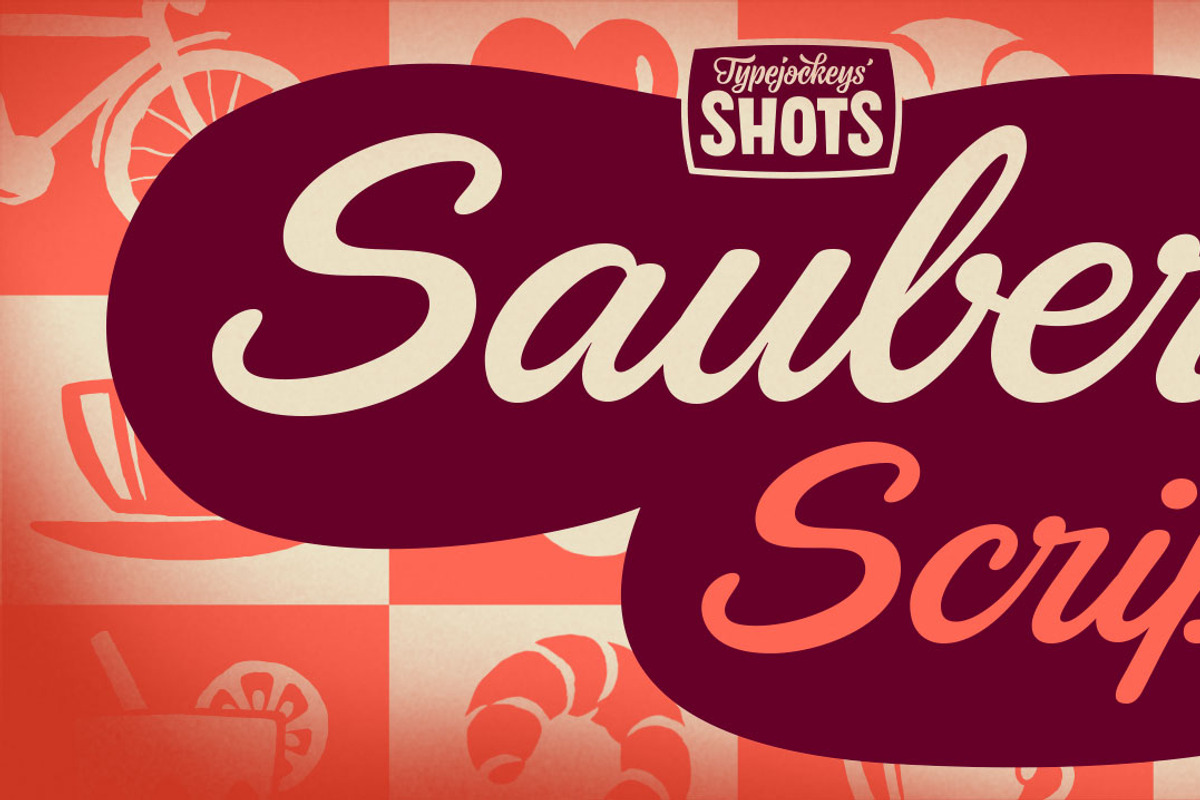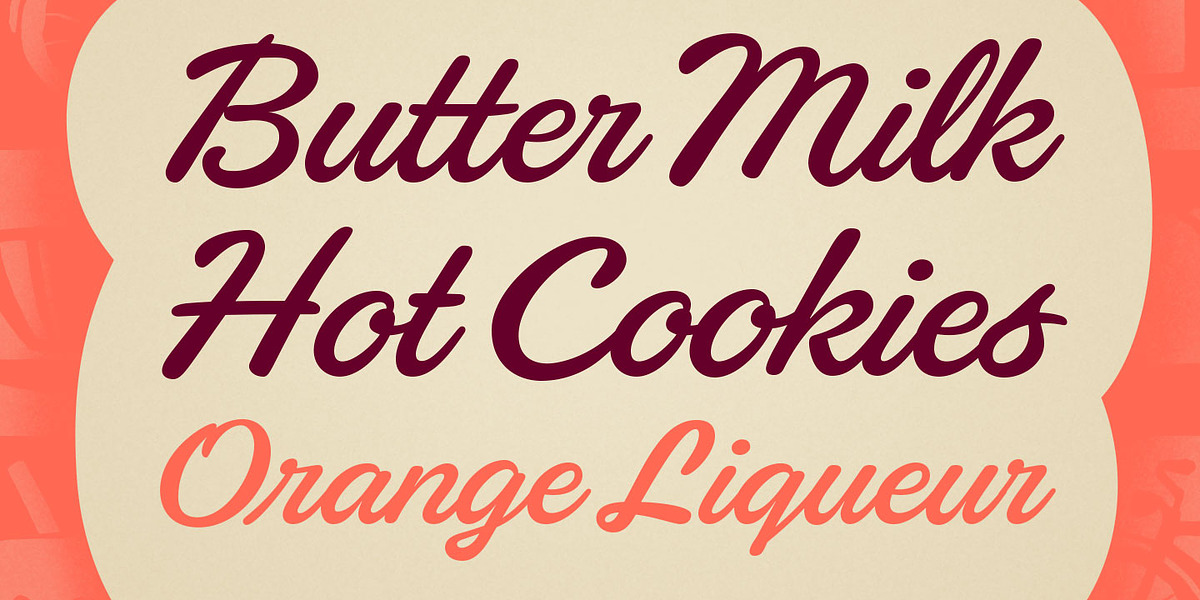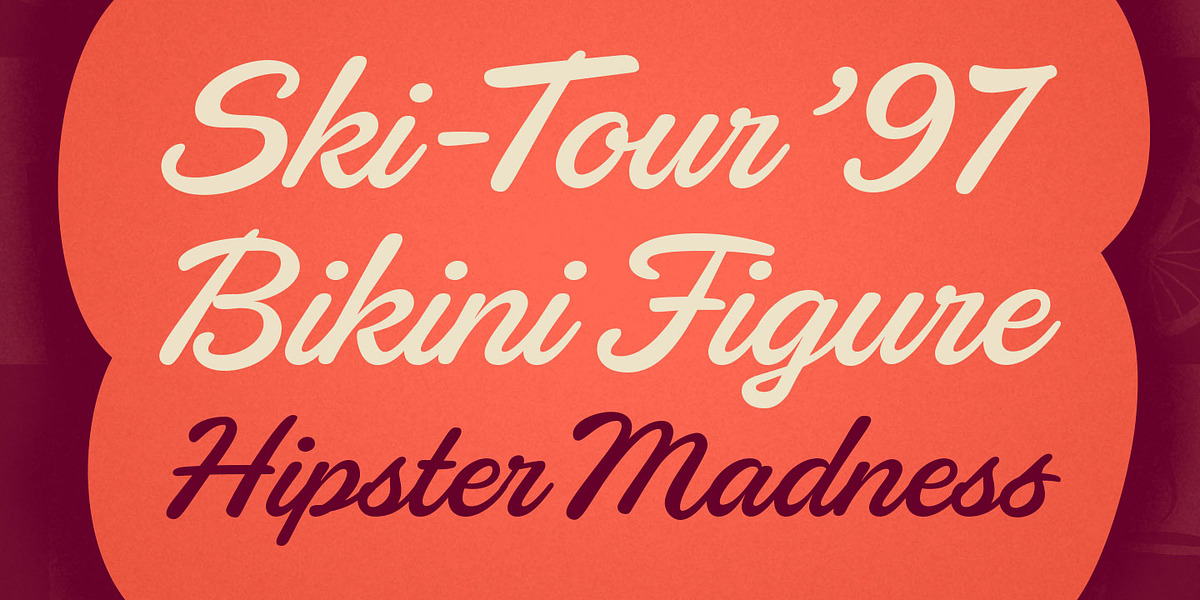
Sauber Script
This preppy brush script font is versatile and suitable for a variety of display and poster applications. Its vintage aesthetic lends itself well to designs seeking a nostalgic or retro feel.